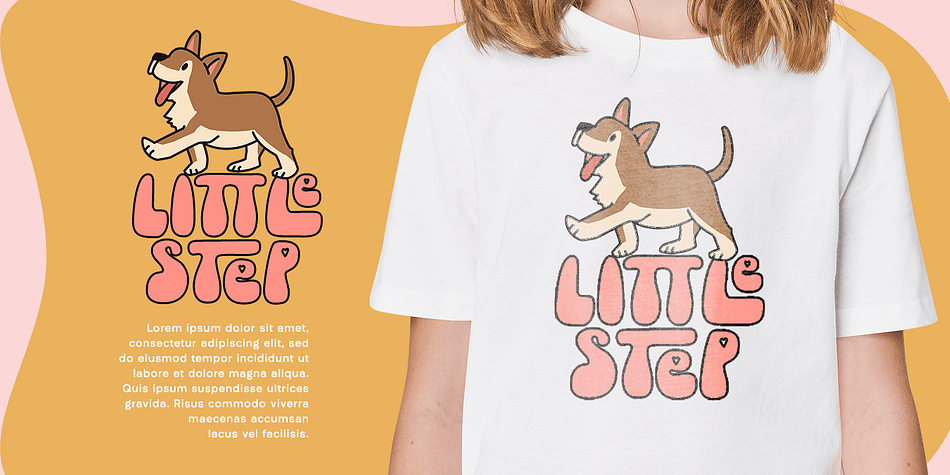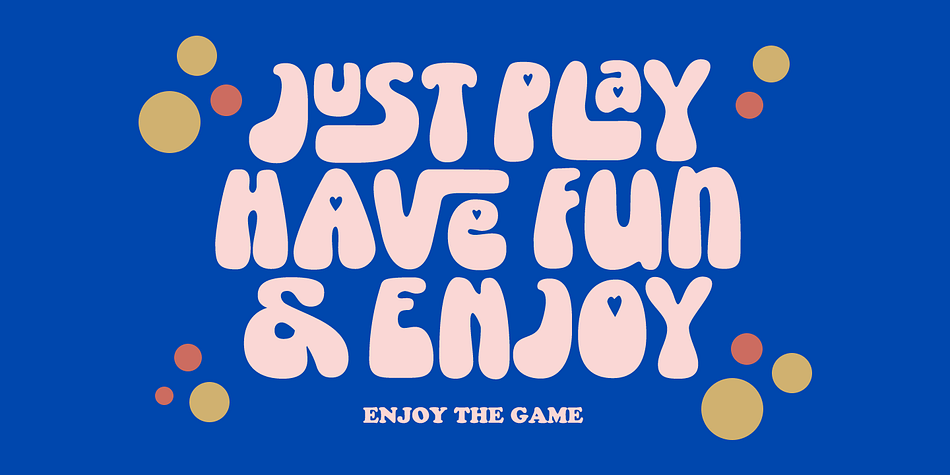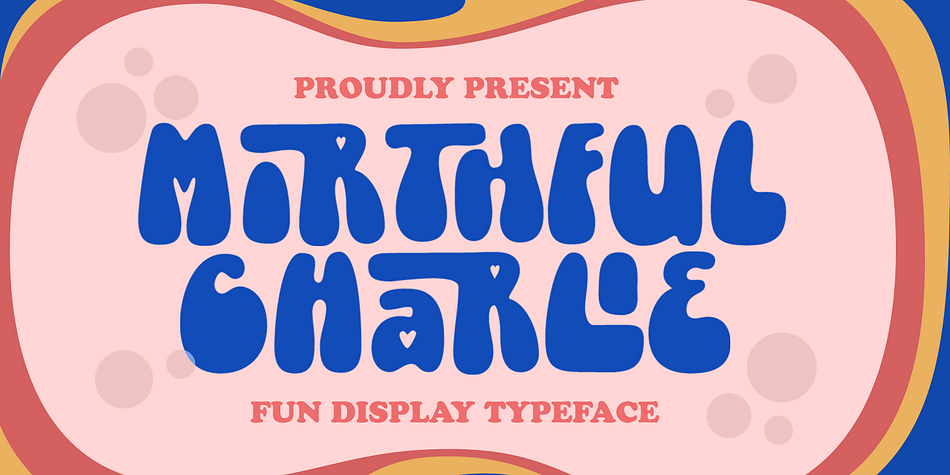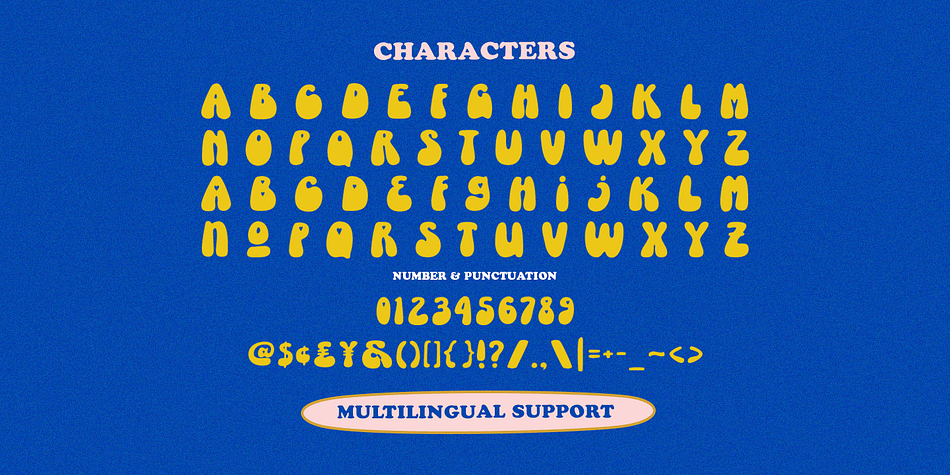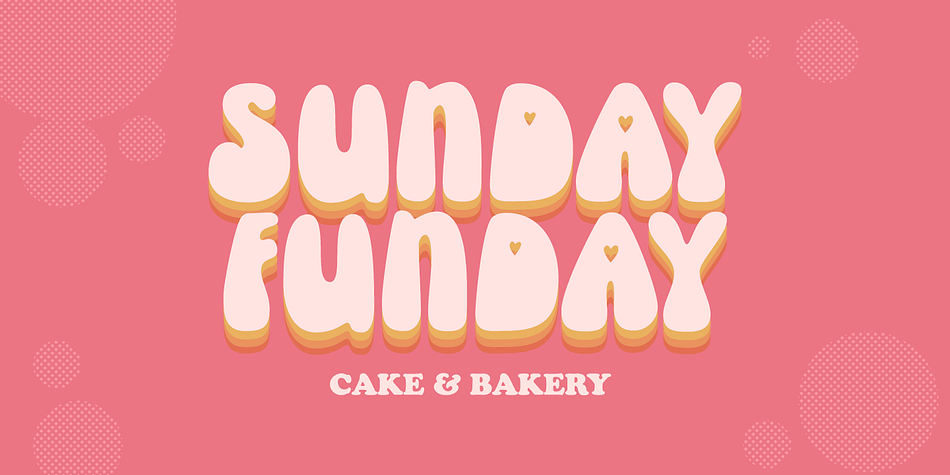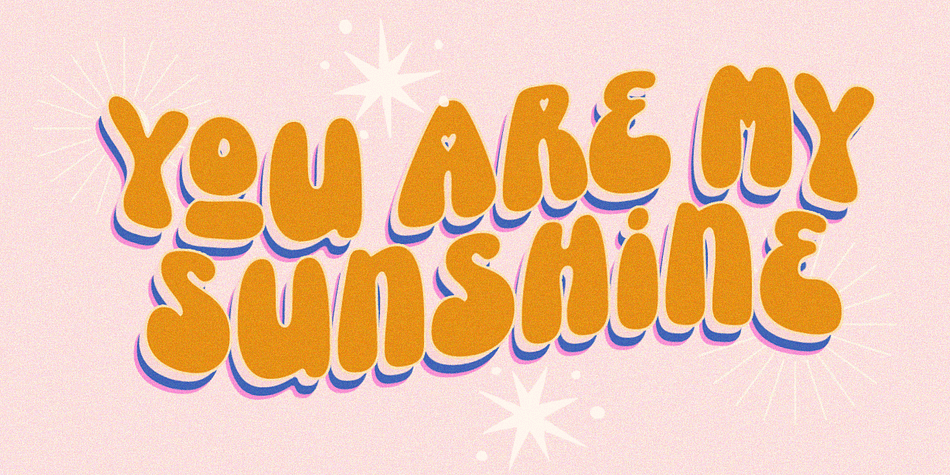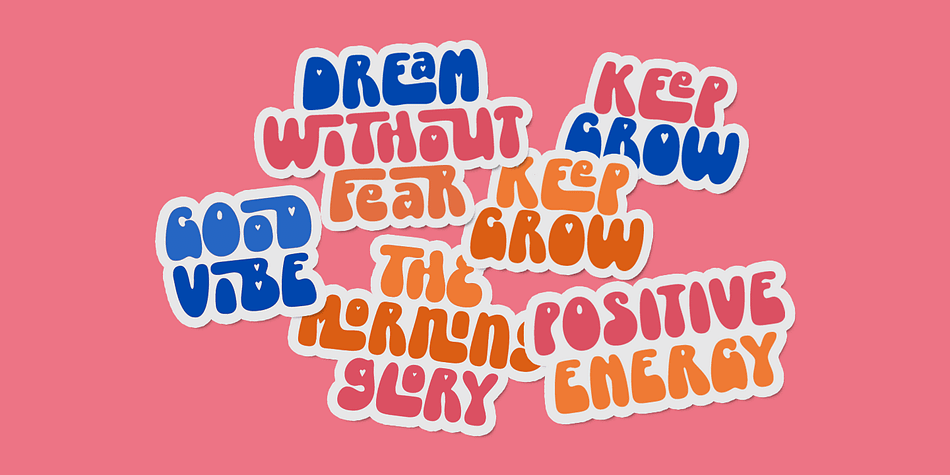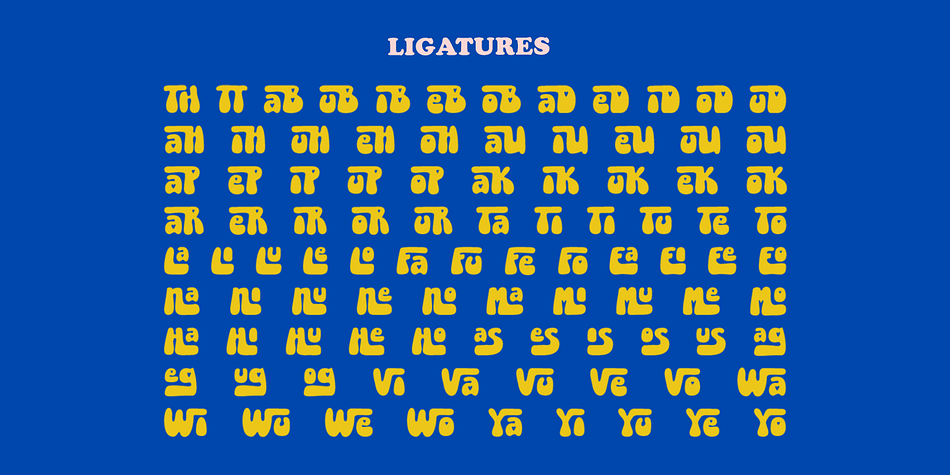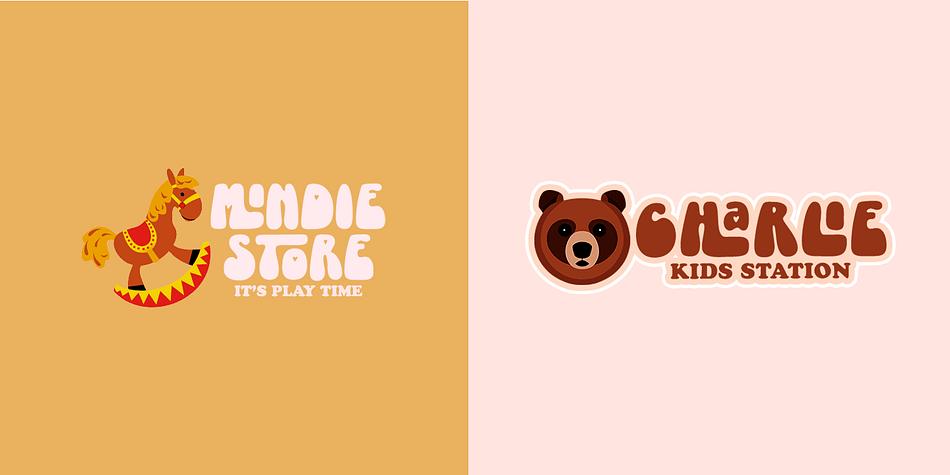
Mirthful Charlie
Designed by Hendry Juanda, Mirthful Charlie is a display sans and retro font family published by Letterhend Studio.
Mirthful Charlie is a quirky bold font that is perfect for adding a touch of fun and whimsy to any design project. The font features a bold and quirky form that exudes a sense of cheerfulness and lightheartedness. This font makes it ideal for a variety of design projects, including posters, invitations, greeting cards, logos, and more. Whether you’re creating a children’s book or designing a playful brand identity, this font is sure to bring a smile to your audience’s face.